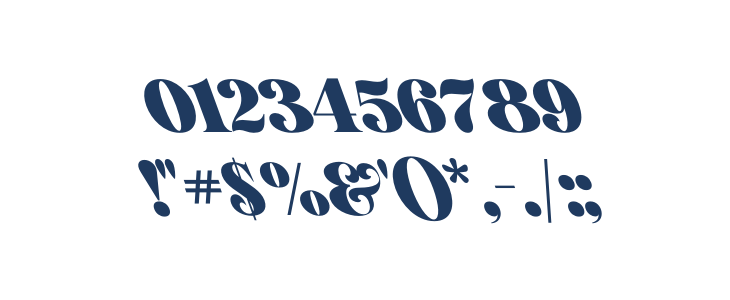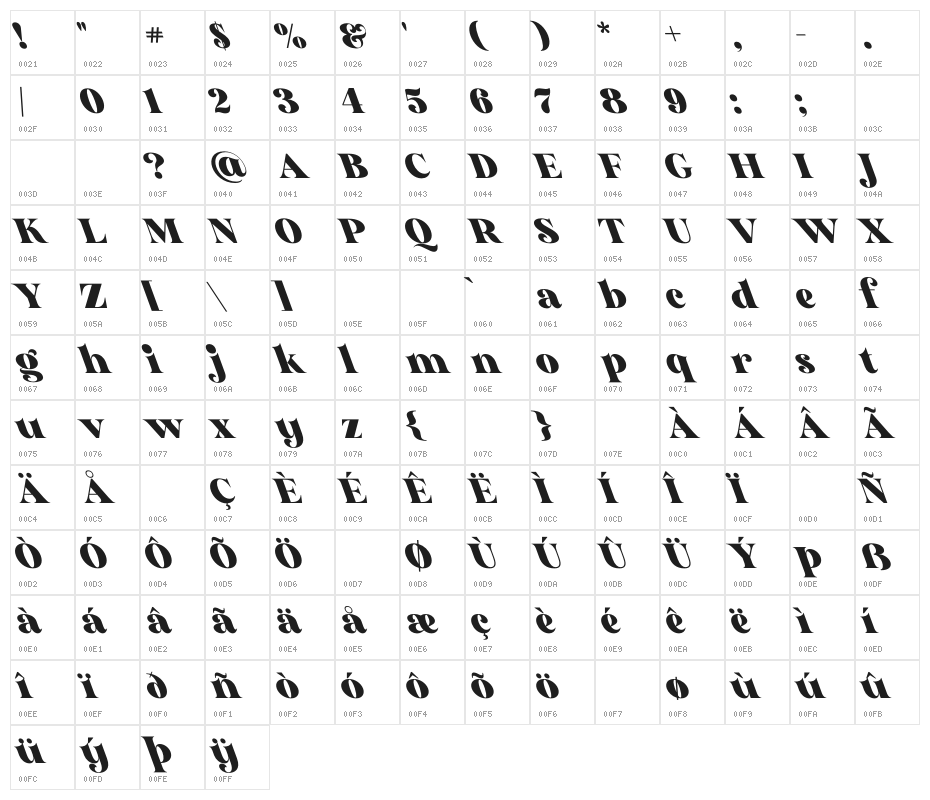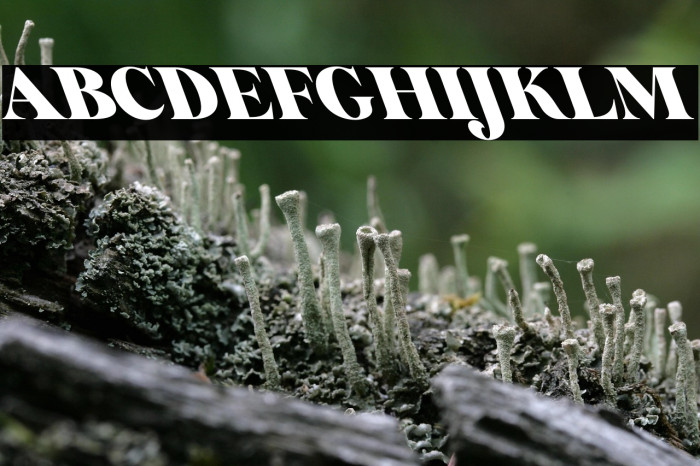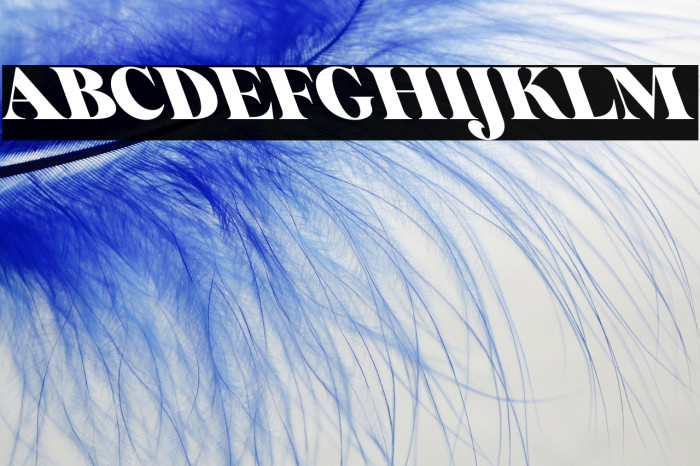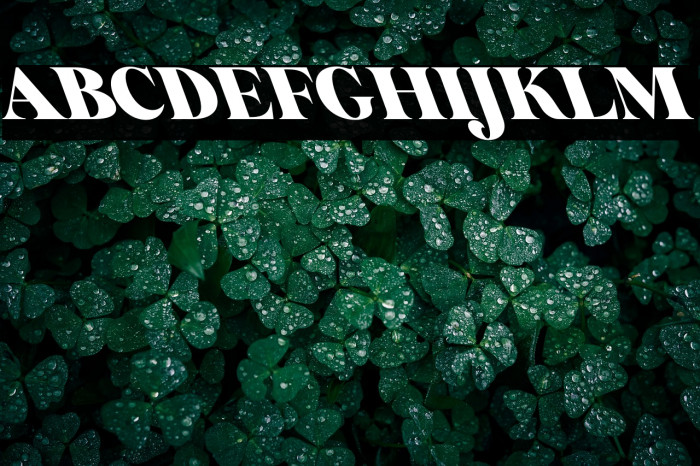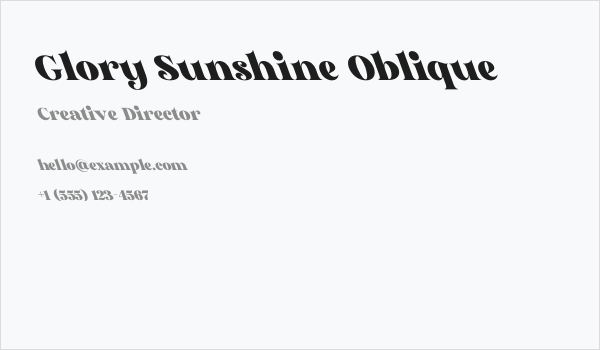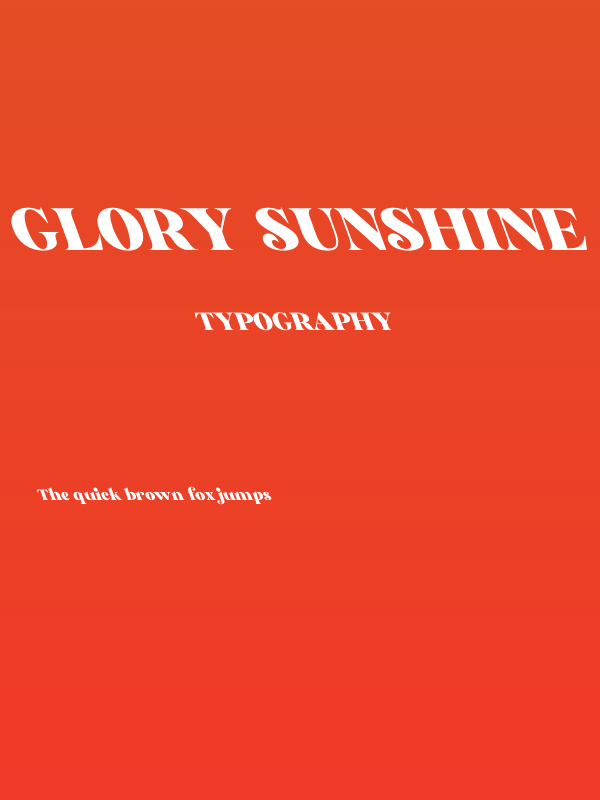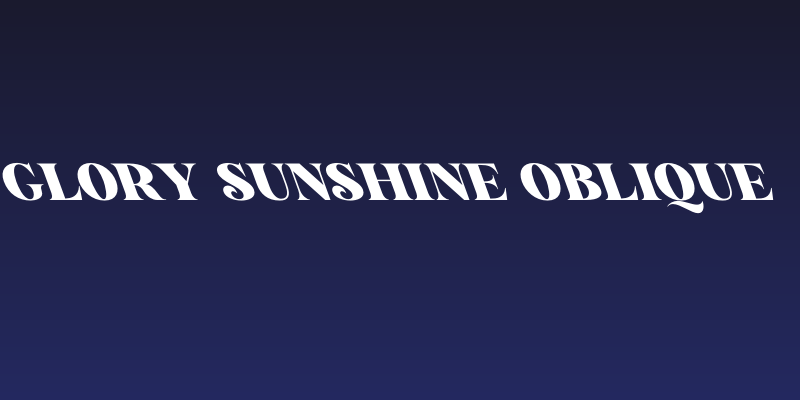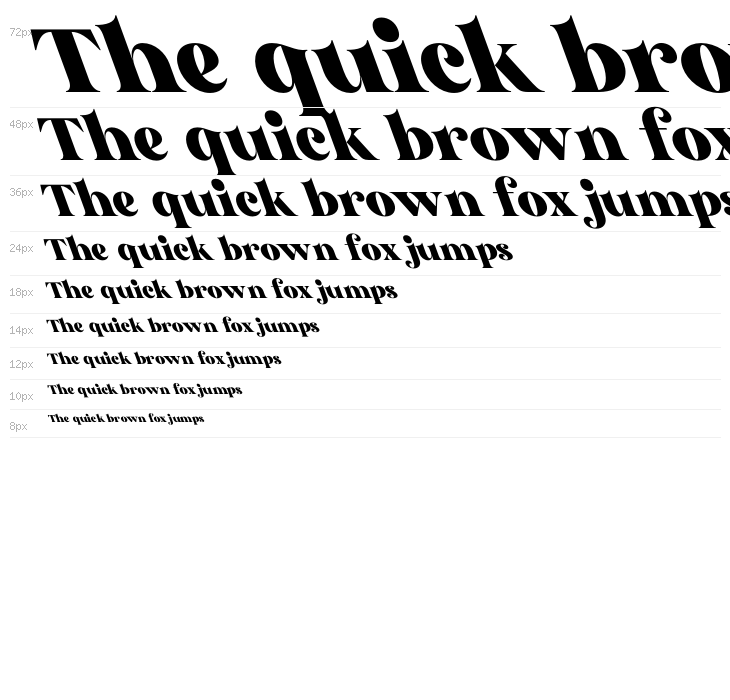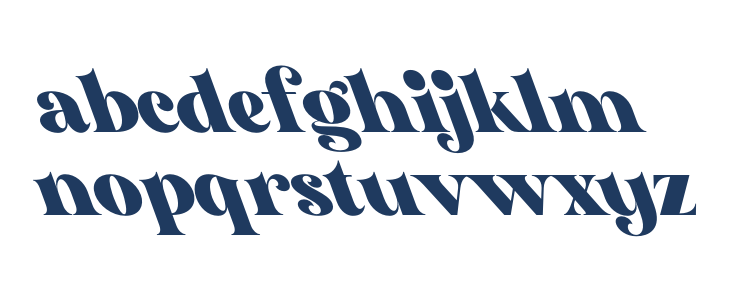
Glory Sunshine Oblique Font
This font features a bold and dynamic style with a strong oblique slant, giving it a sense of movement and energy. The characters are thick and robust, with high contrast between thick and thin strokes, adding to its dramatic appearance. The serifs are pronounced and slightly curved, enhancing the font's decorative appeal. The uppercase letters are particularly striking, with a commanding presence, while the lowercase letters maintain a consistent flow. The numerals are equally bold, ensuring readability and impact. Special characters are designed with the same attention to detail, making this font versatile for various uses.
Proposed ProjectsIdeal for branding, headlines, posters, and any project requiring a strong visual impact.